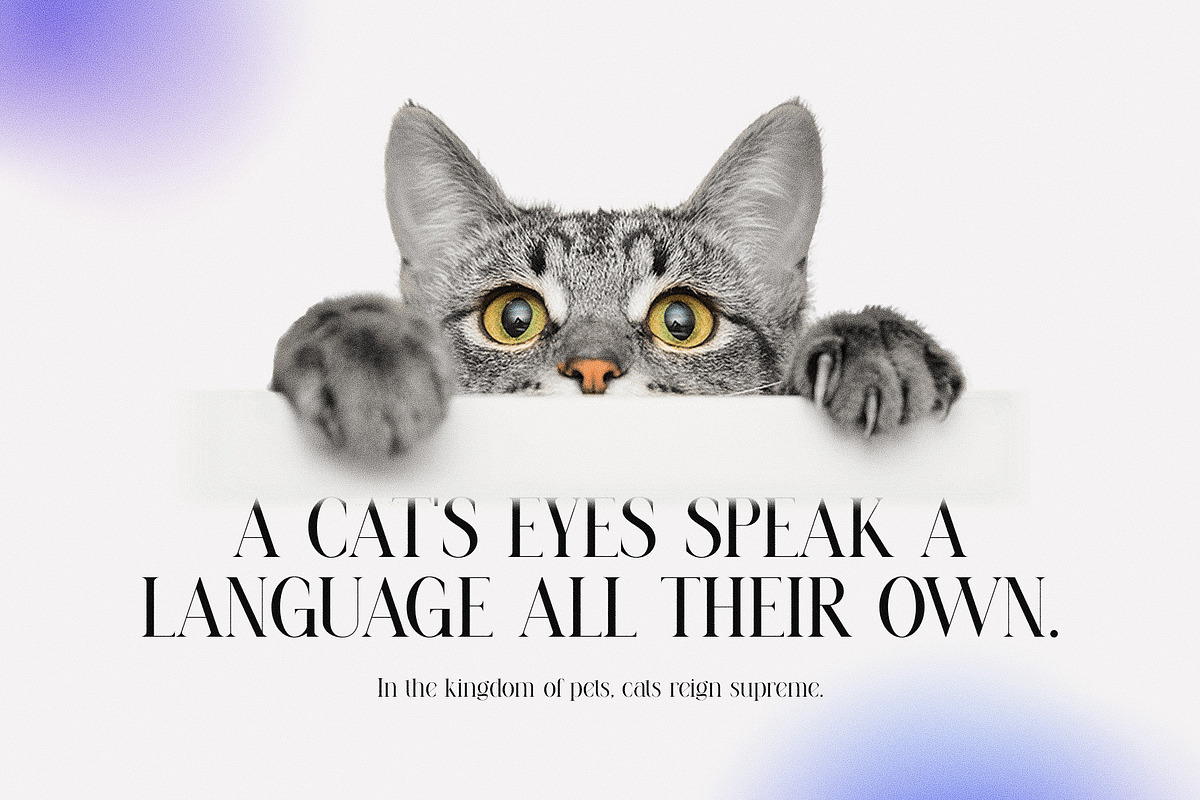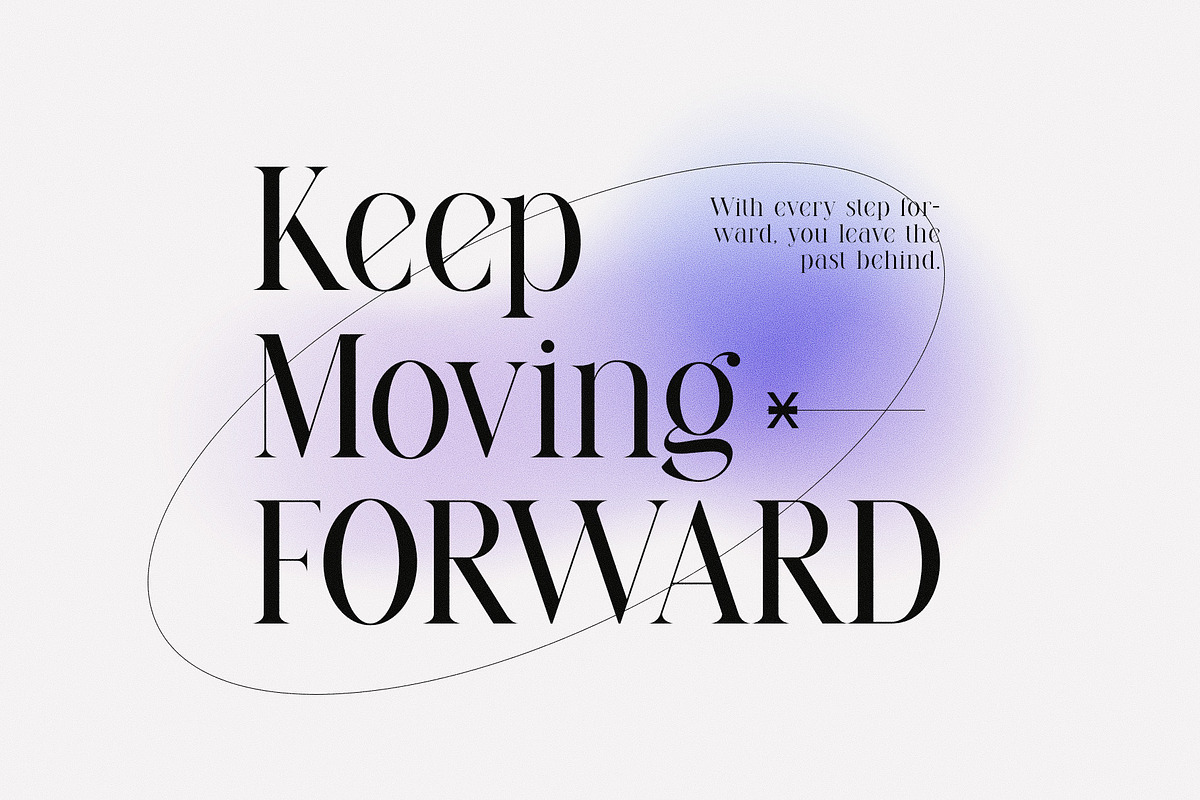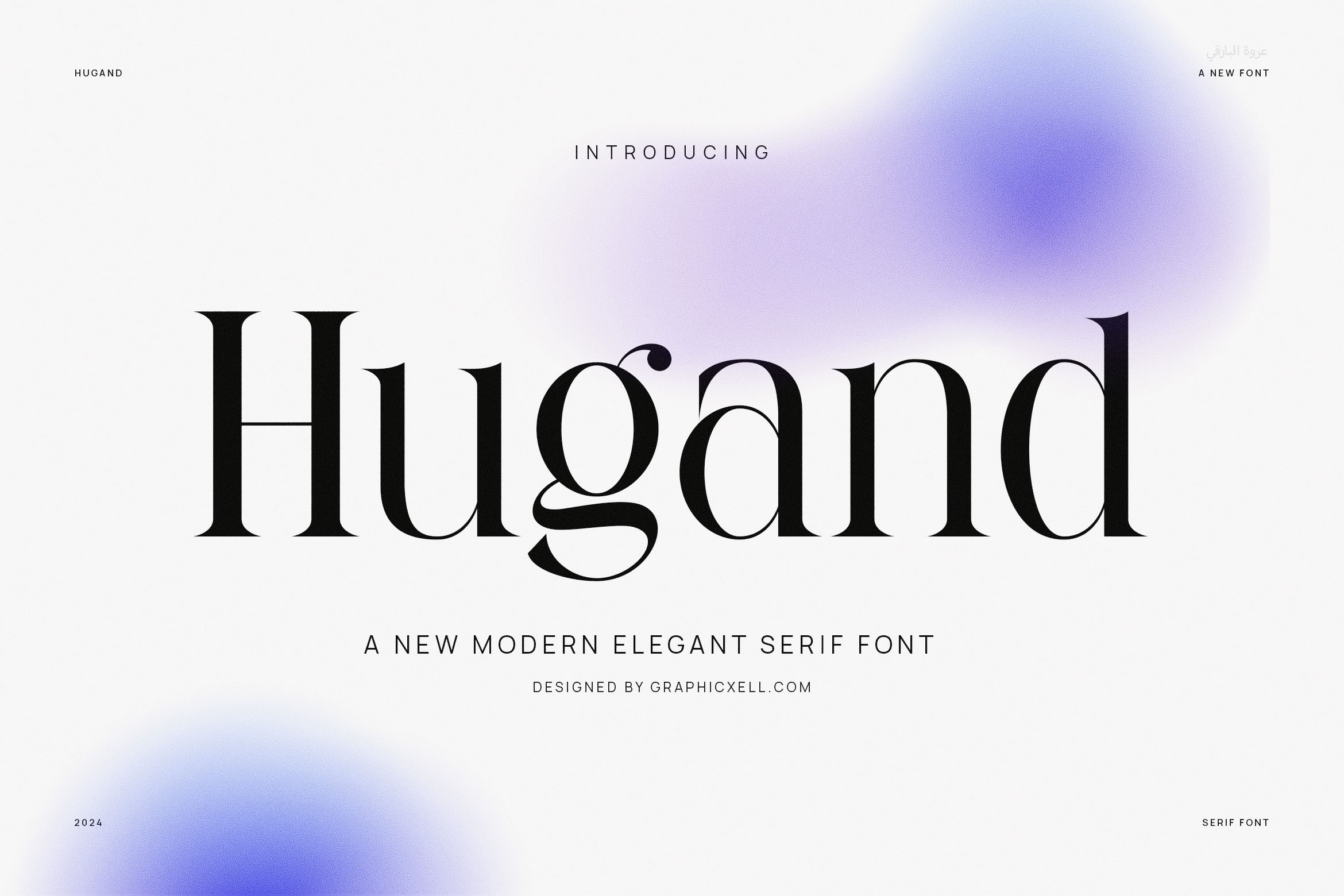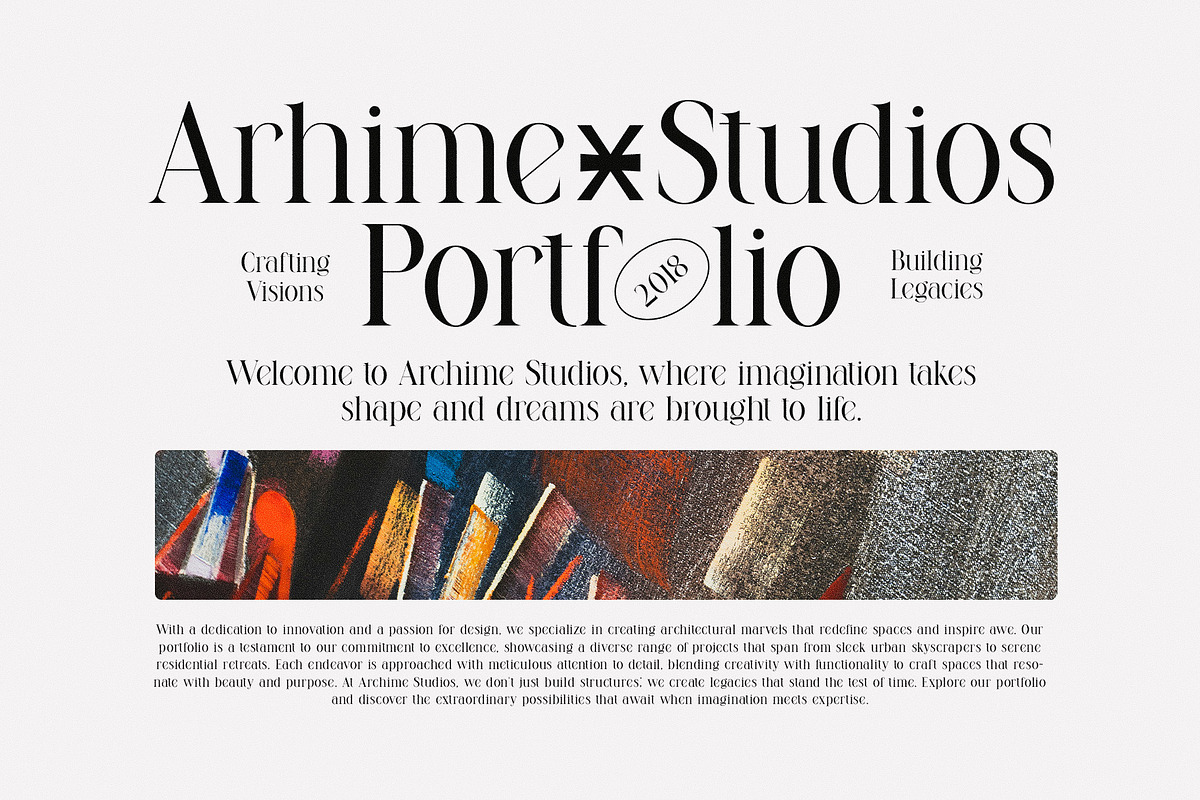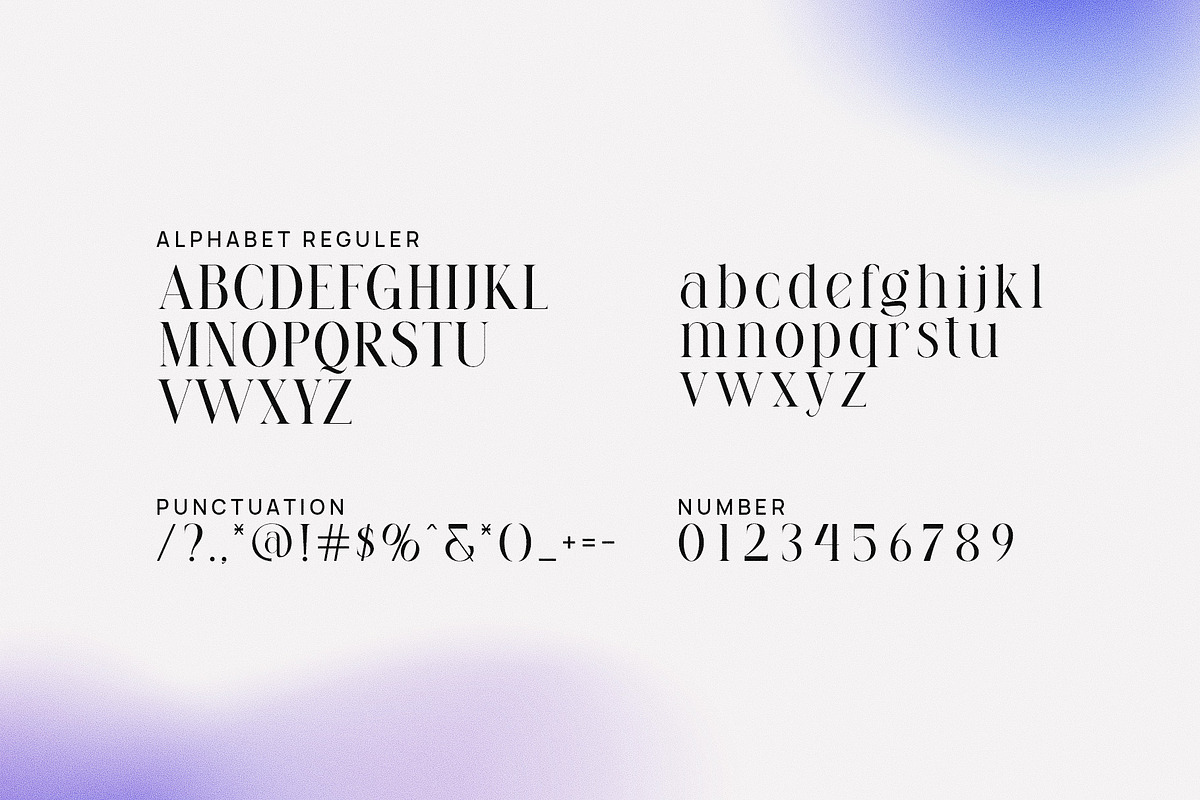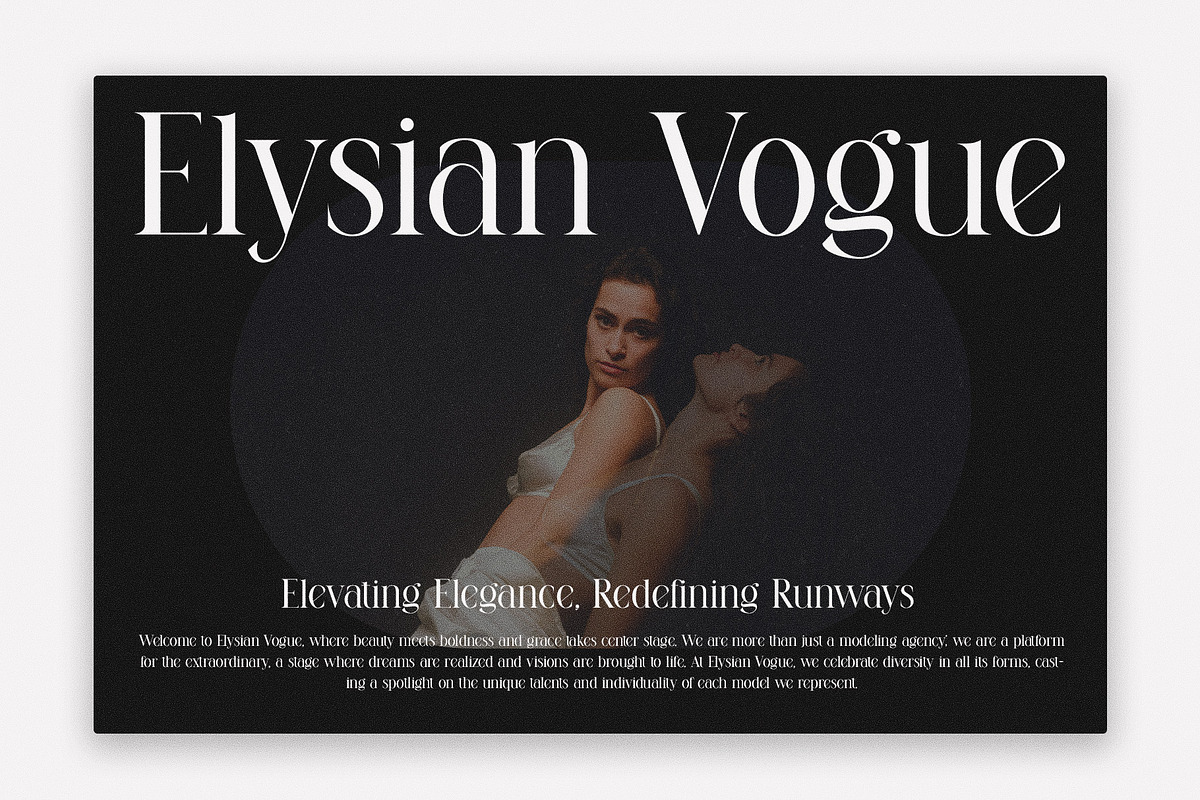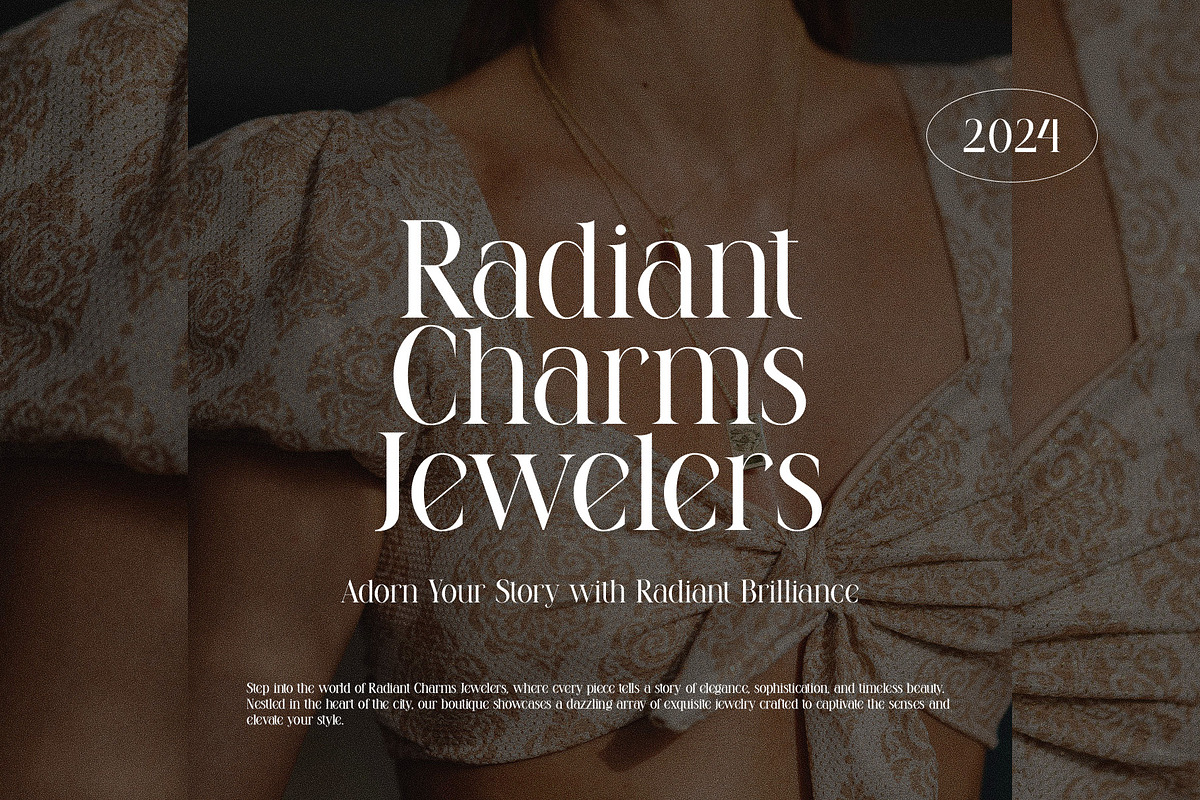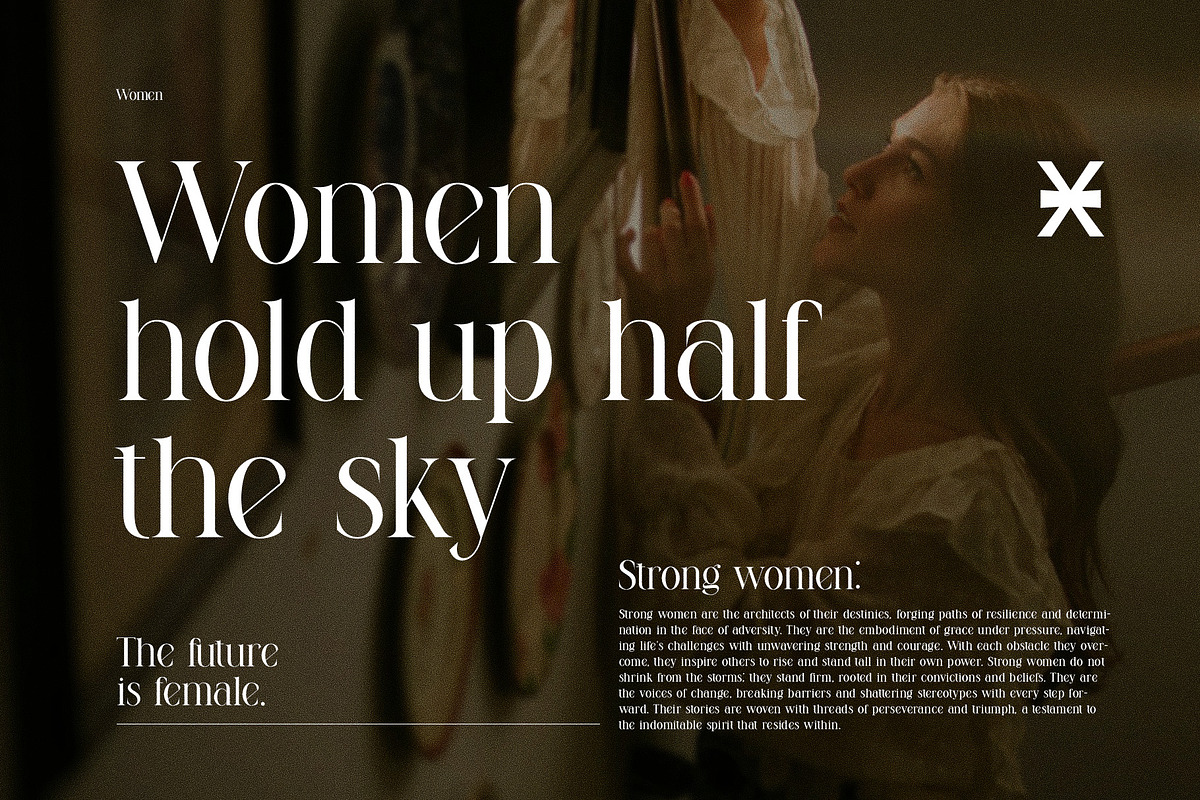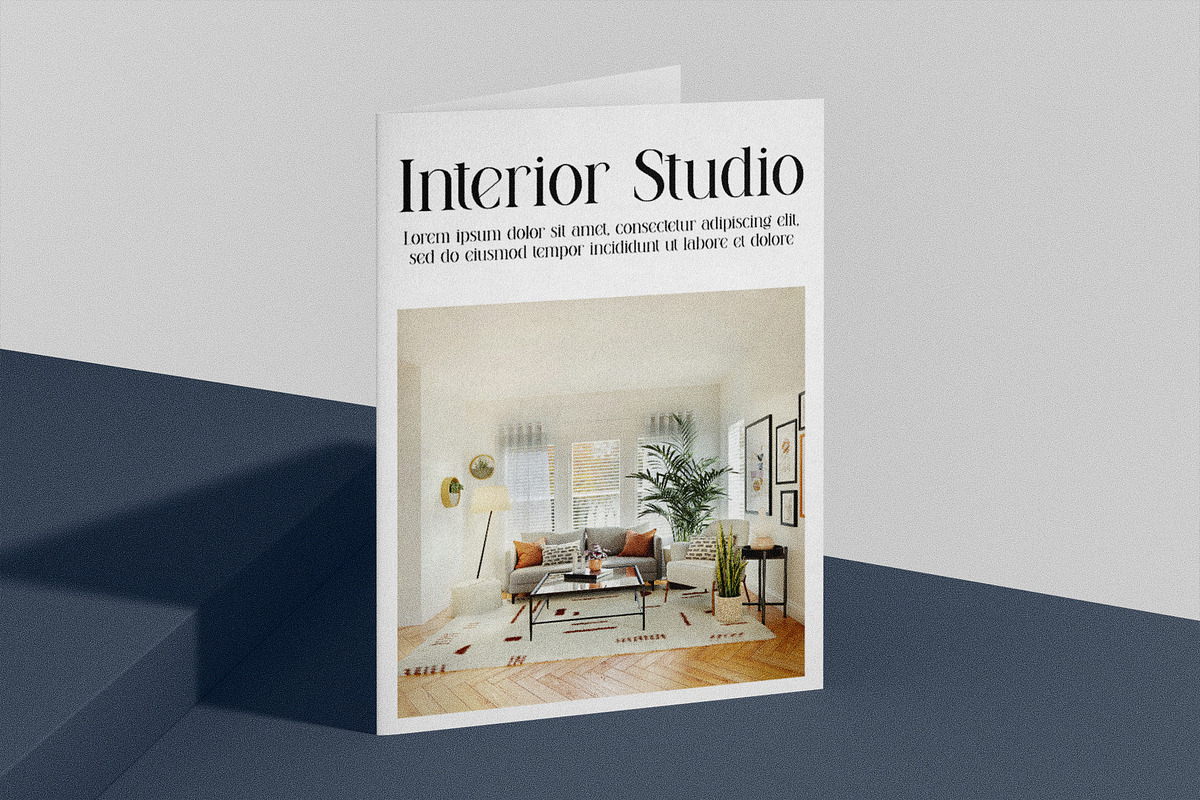
Hugand Minimalist Serif Font
Hugand is variant of serif font that combines modernity and elegance. With serifs at the end of each letter, this font has a classic characteristic. This serif font is best for those who want their designs look formal and professional. In fact, the clear and simple letterforms make it easy to read. The thickness of this font varies, with some parts being thinner than others. That’s why this font can add value to the design and enhance the image of the content. If you want a design that emphasizes a formal and professional look, Hugand Modern Elegant Serif could be the best font to choose. In graphic designs, this font is perfectly used in titles, introductions, or sections you want to highlight. Besides that, this font style is also excellent for print designs like newspapers, magazines, or brochures. In conclusion, its classic and elegance impression makes this serif font recommended for any design to create a formal and professional look.